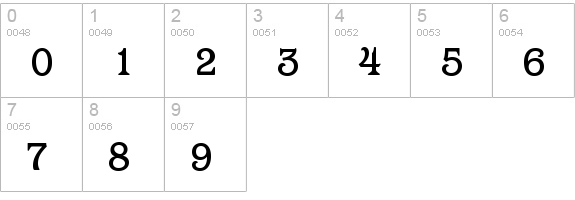
BarcelonaEF-Medium is a balanced, medium-weight variant in the BarcelonaEF typeface family \xE2\x80\x94 well suited to sub-headlines, navigation, and balanced editorial work.
BarcelonaEF-Medium font is a timeless and elegant typeface that exudes sophistication and style. With its balanced letterforms and subtle curves, this font is perfect for adding a touch of class to any design project. Whether you are creating a logo, poster, or website, BarcelonaEF-Medium font will elevate your work to the next level. What sets BarcelonaEF-Medium font apart is its versatility and readability. It's easy on the eyes, making it suitable for both print and digital applications. The medium weight strikes the perfect balance between boldness and delicacy, making it a great choice for headlines, subheadings, and body text. And the best part? BarcelonaEF-Medium font is freely available to download at FontsMarket.com. This means you can start using this elegant typeface in your projects right away, without any cost involved. Don't miss out on the opportunity to enhance your designs with BarcelonaEF-Medium font today!